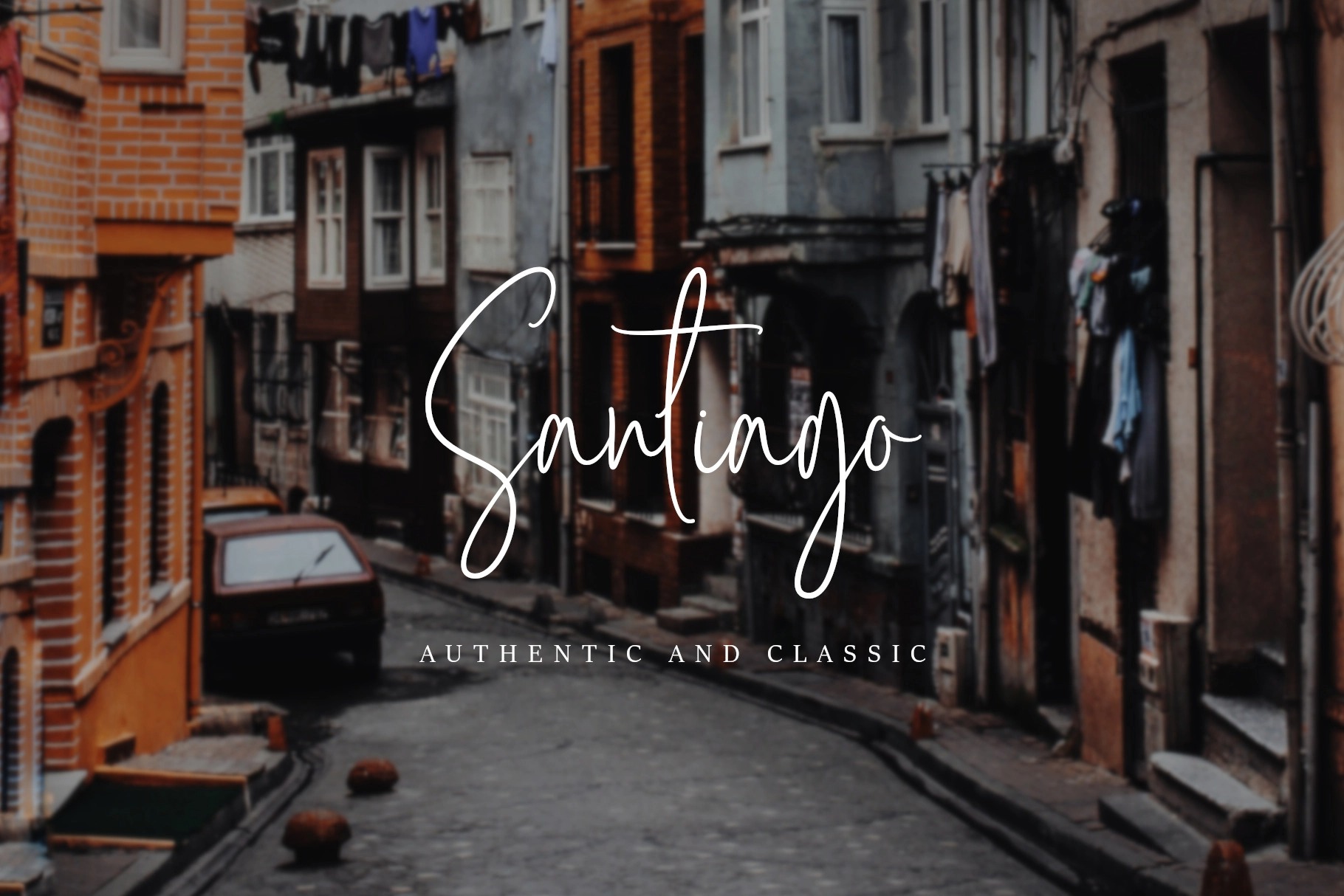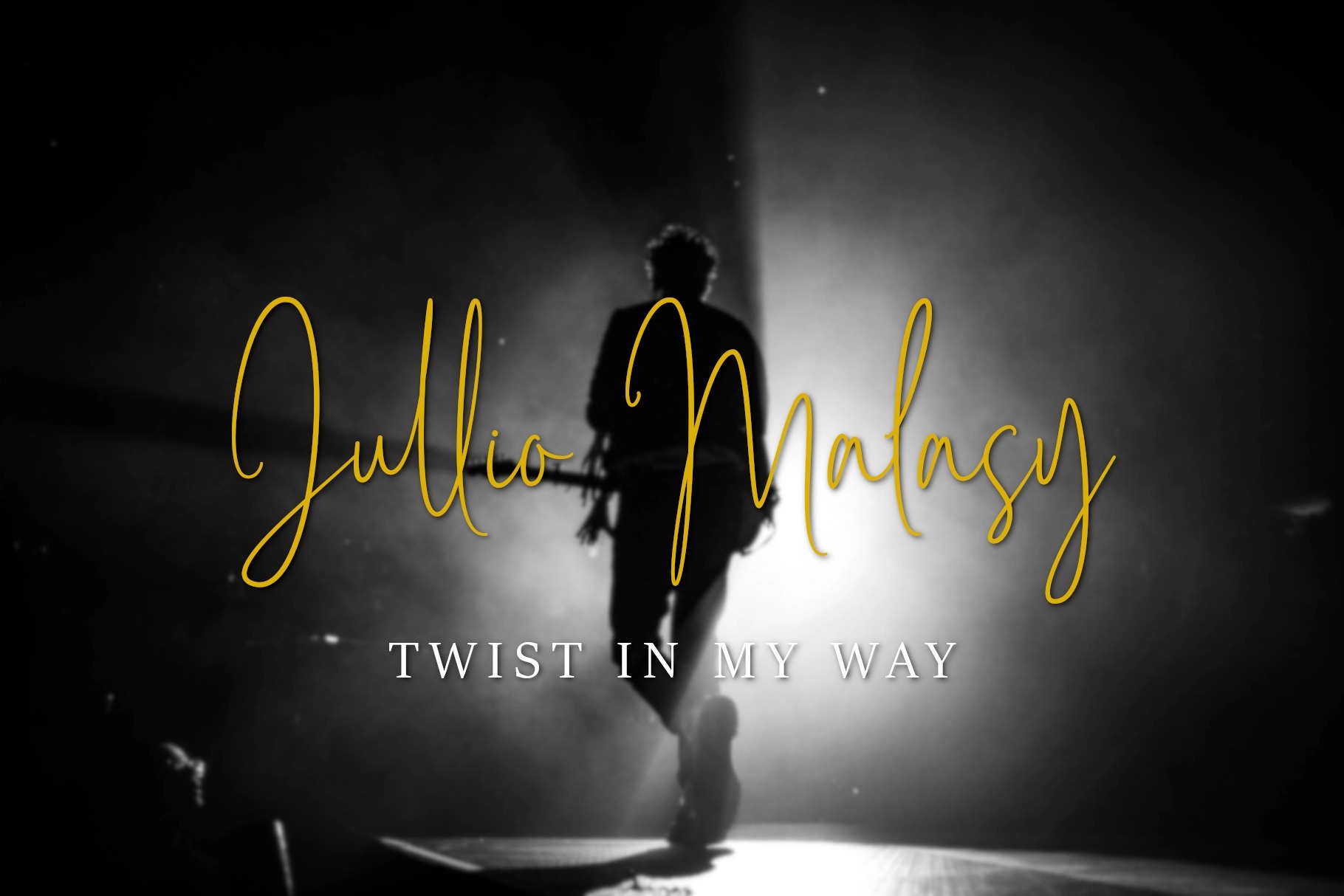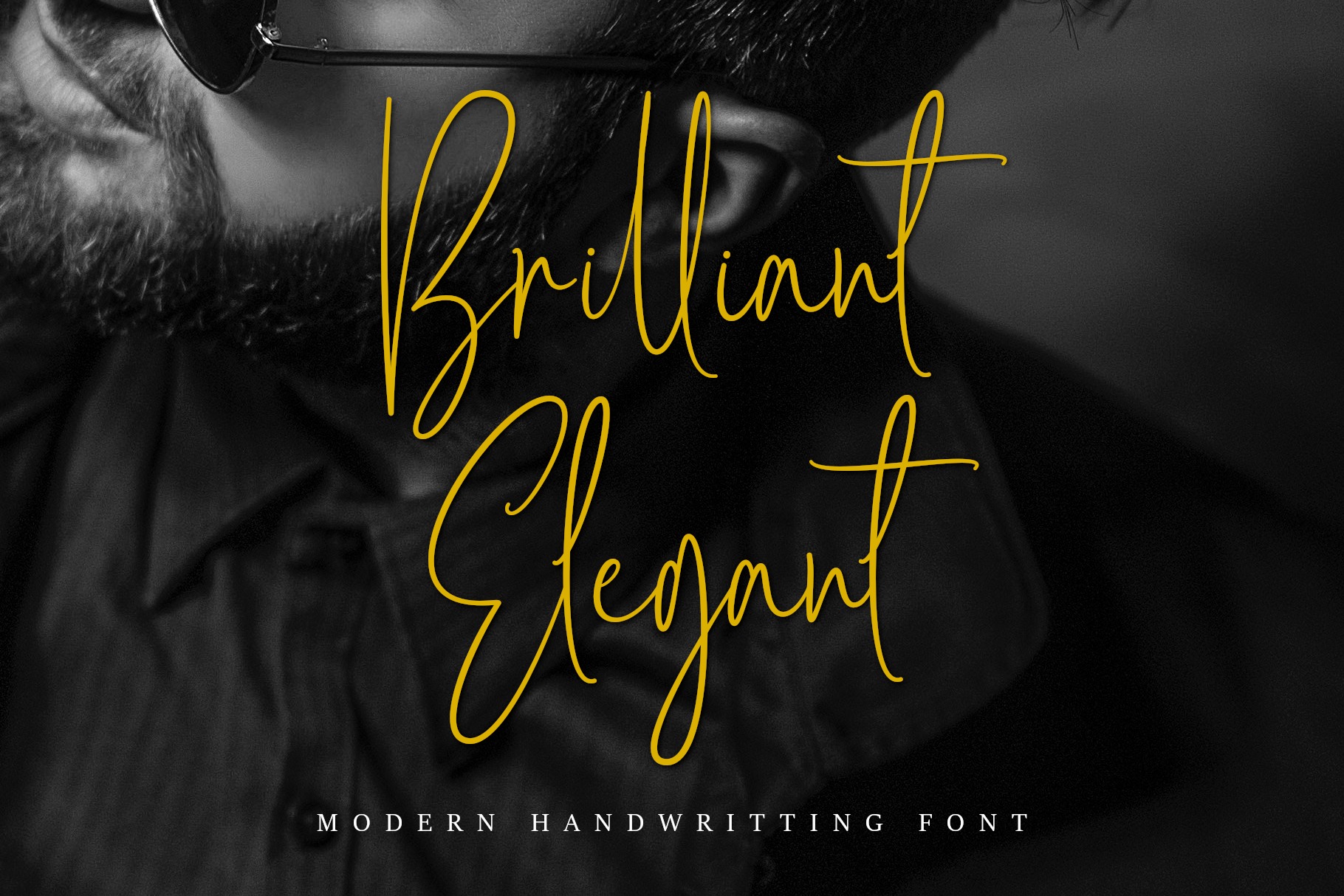
Brilliant Elegant Handwritten Font
This font is an unique handwritten signature script. It has an simple flow with a natural and organic look. It comes with several ligatures, which will make this font more attractive. Brilliant Elegant font is suitable for various media such as posters, business cards, t-shirts, crafting, etc.